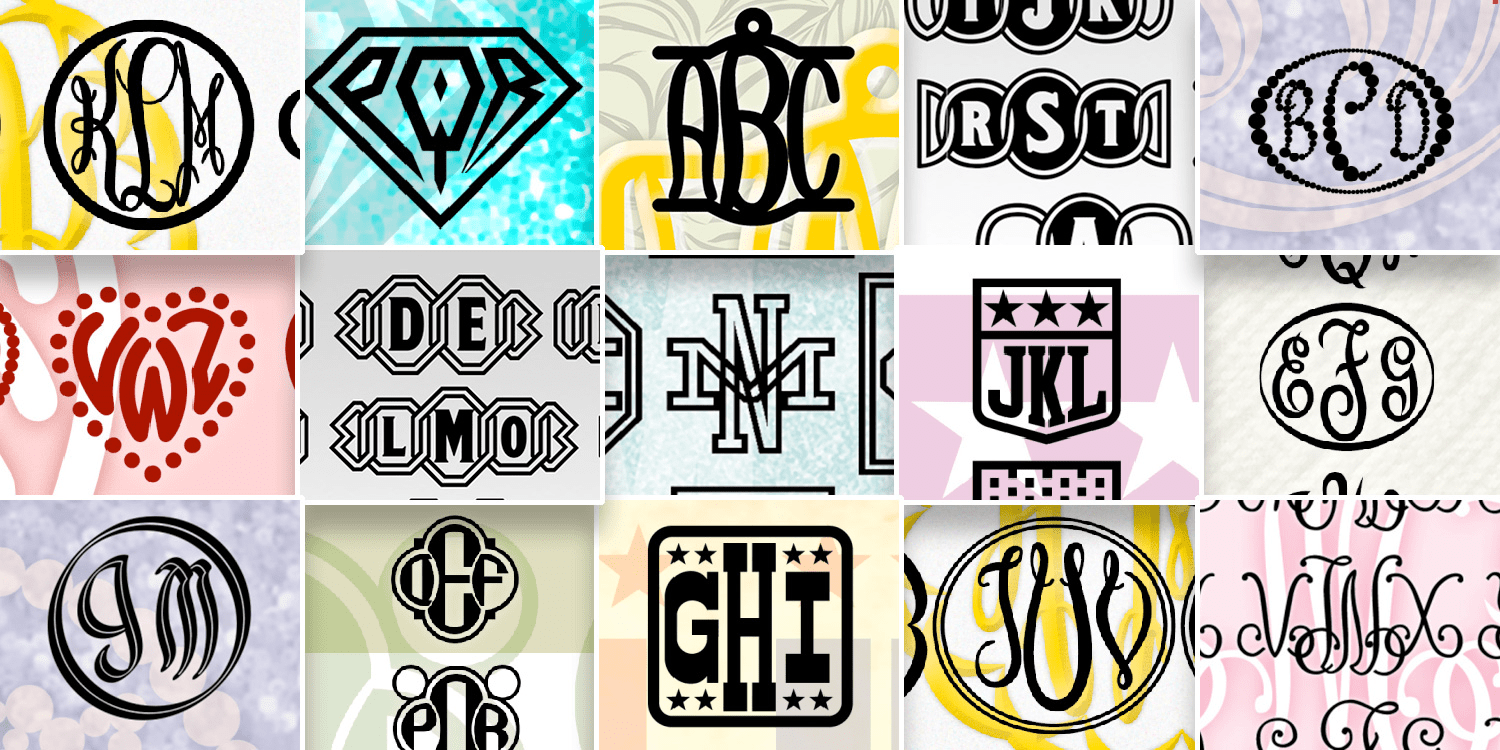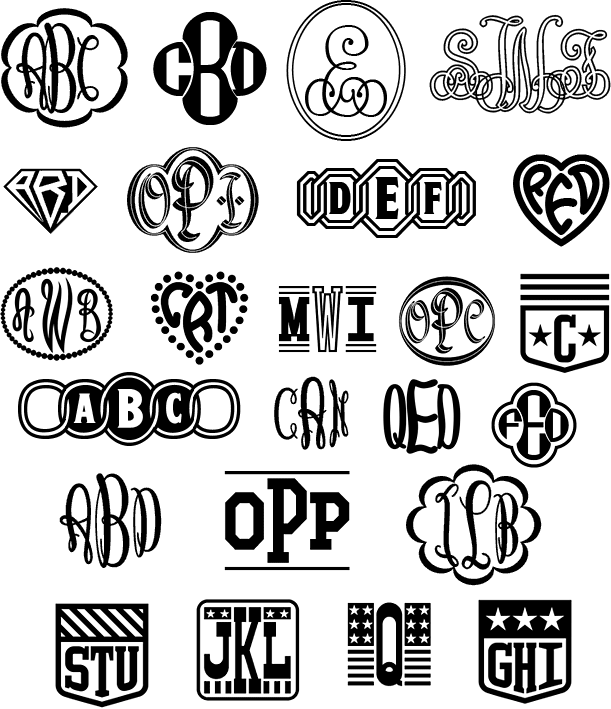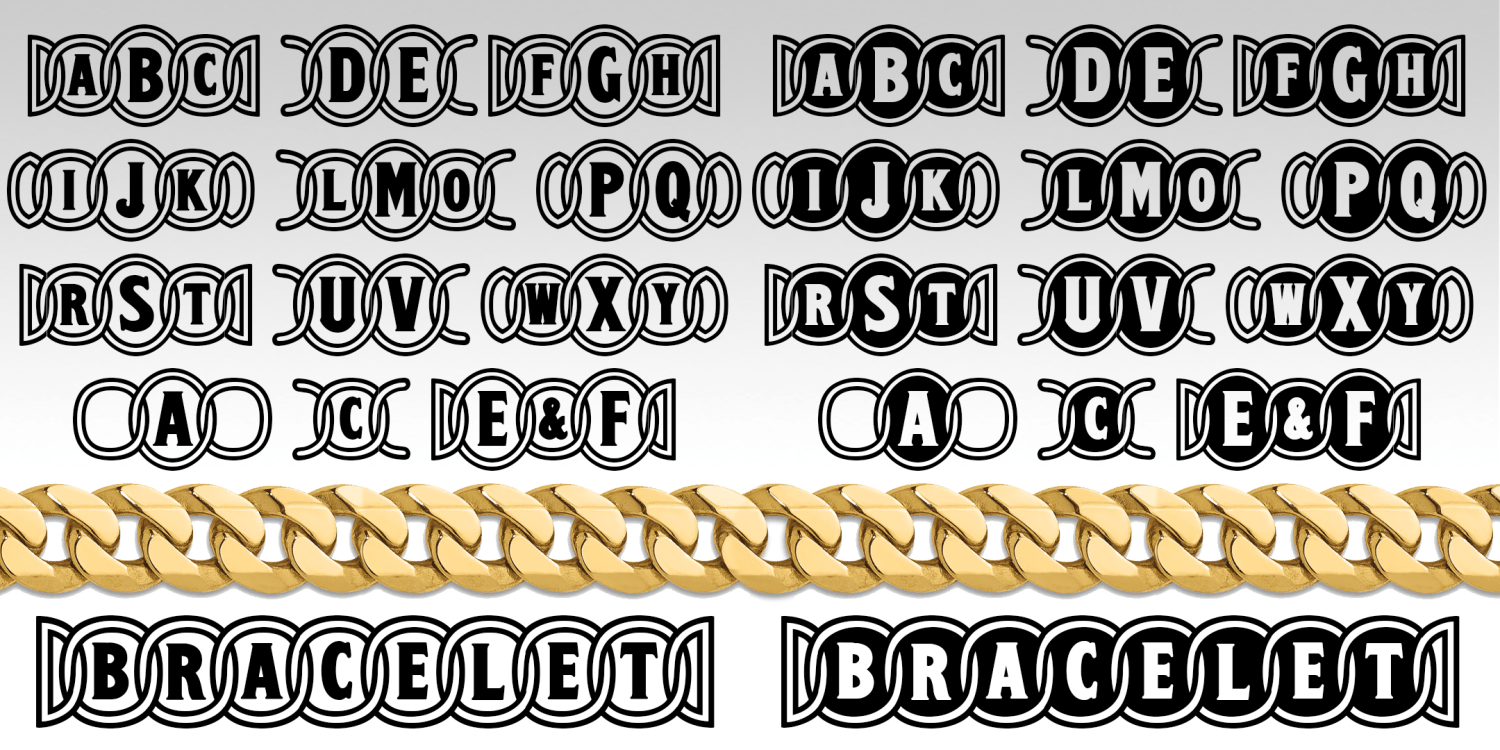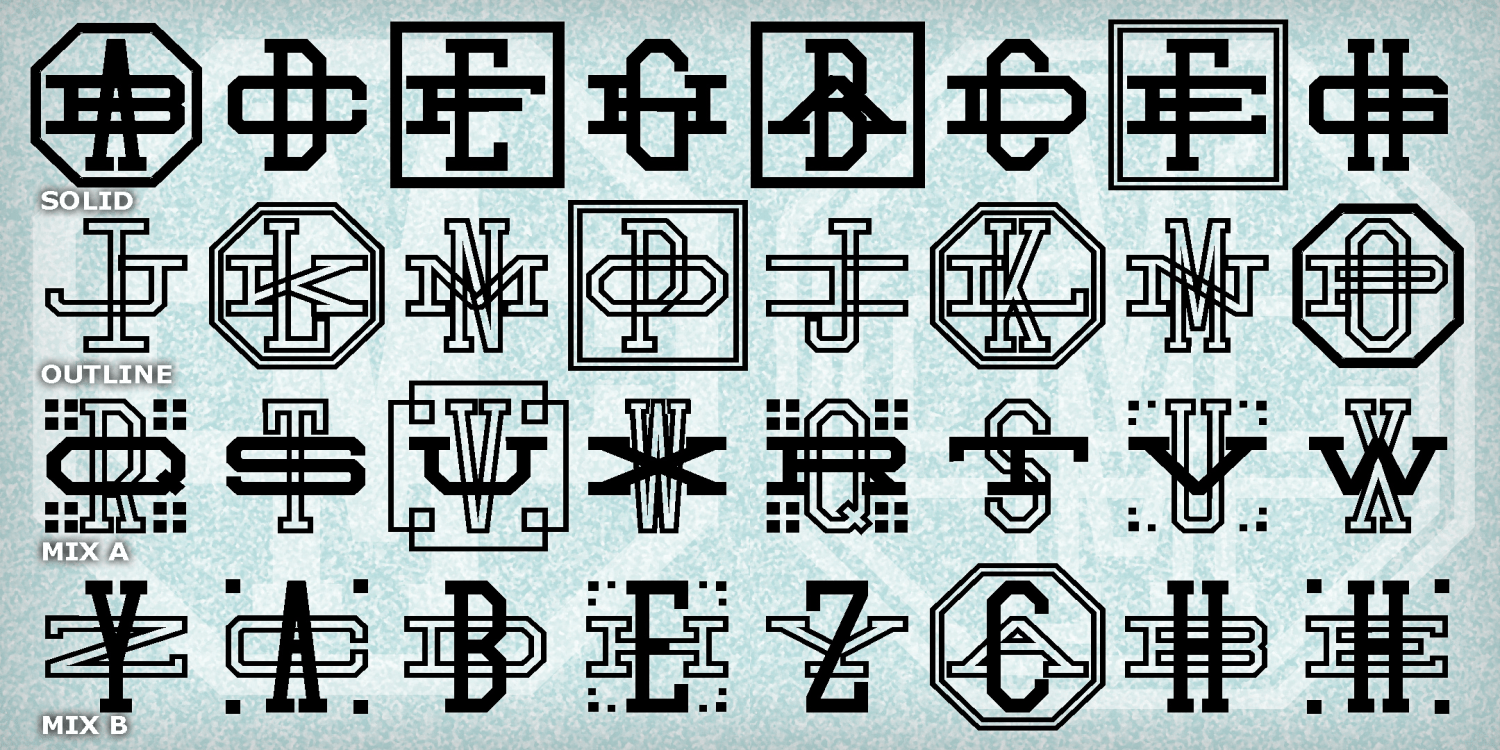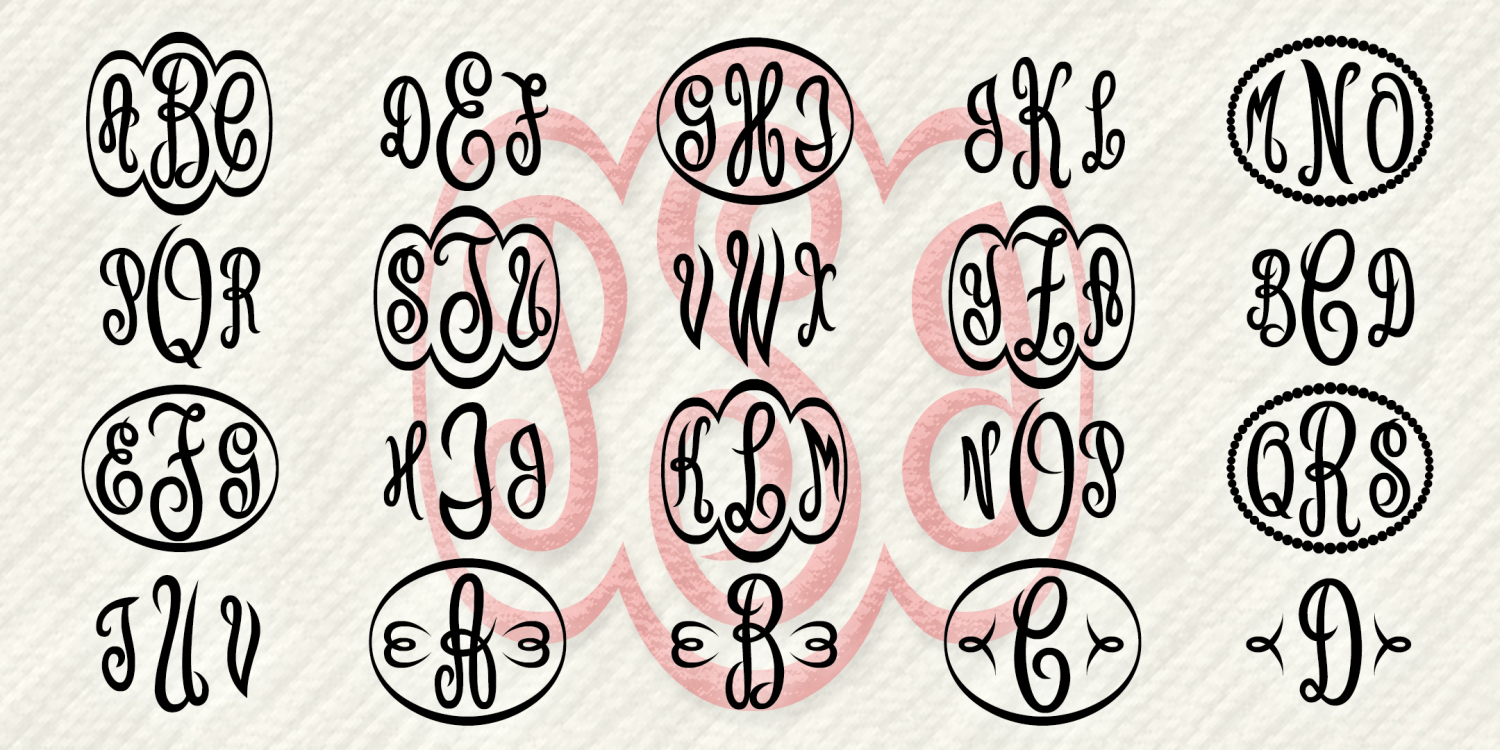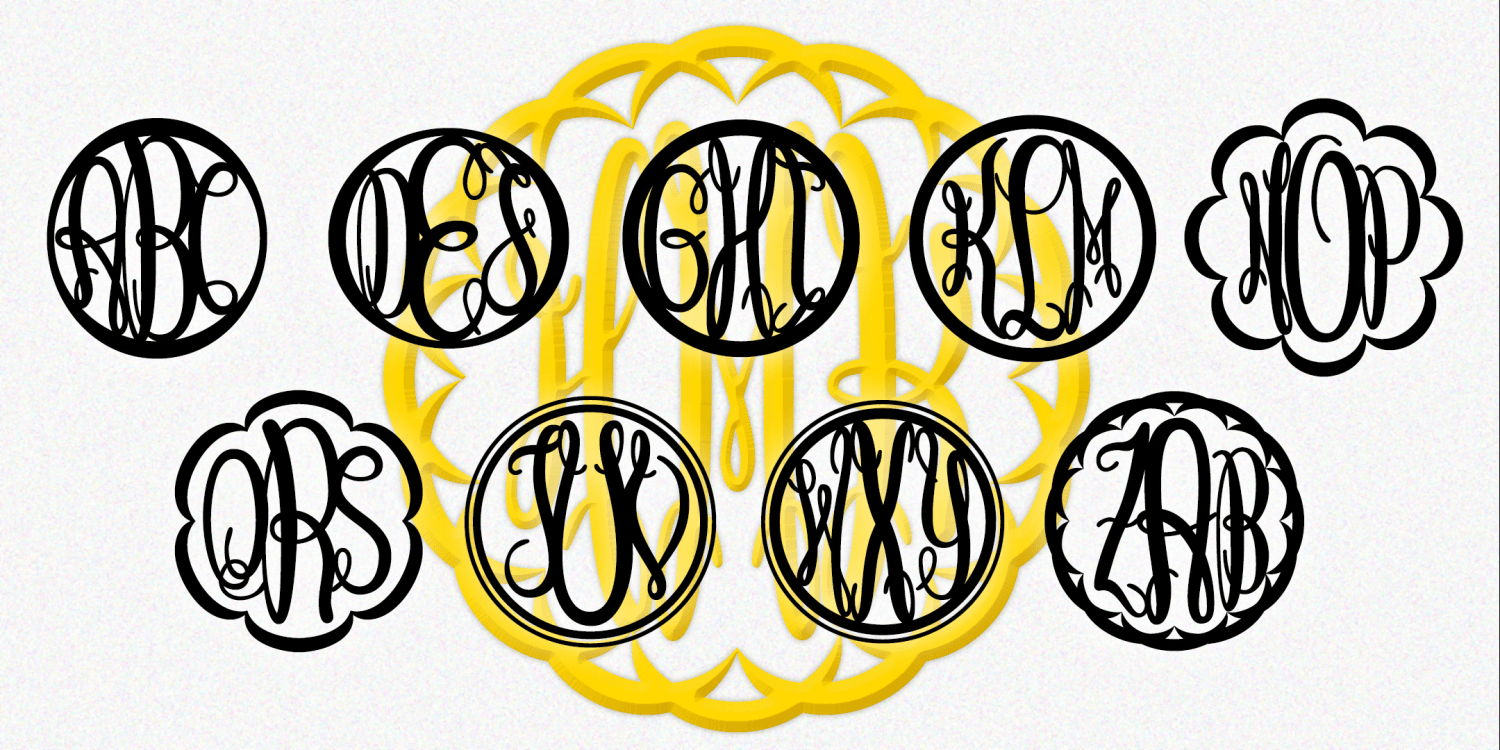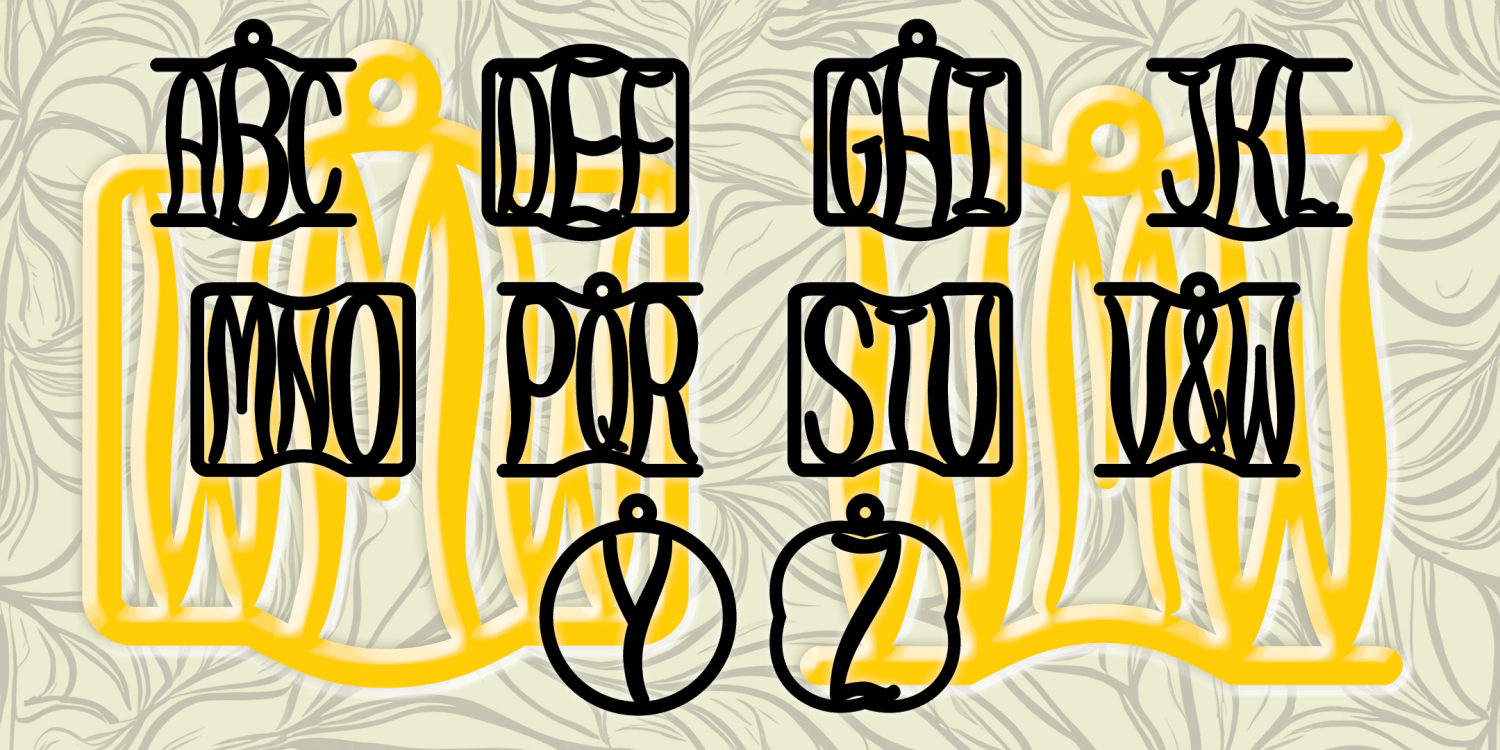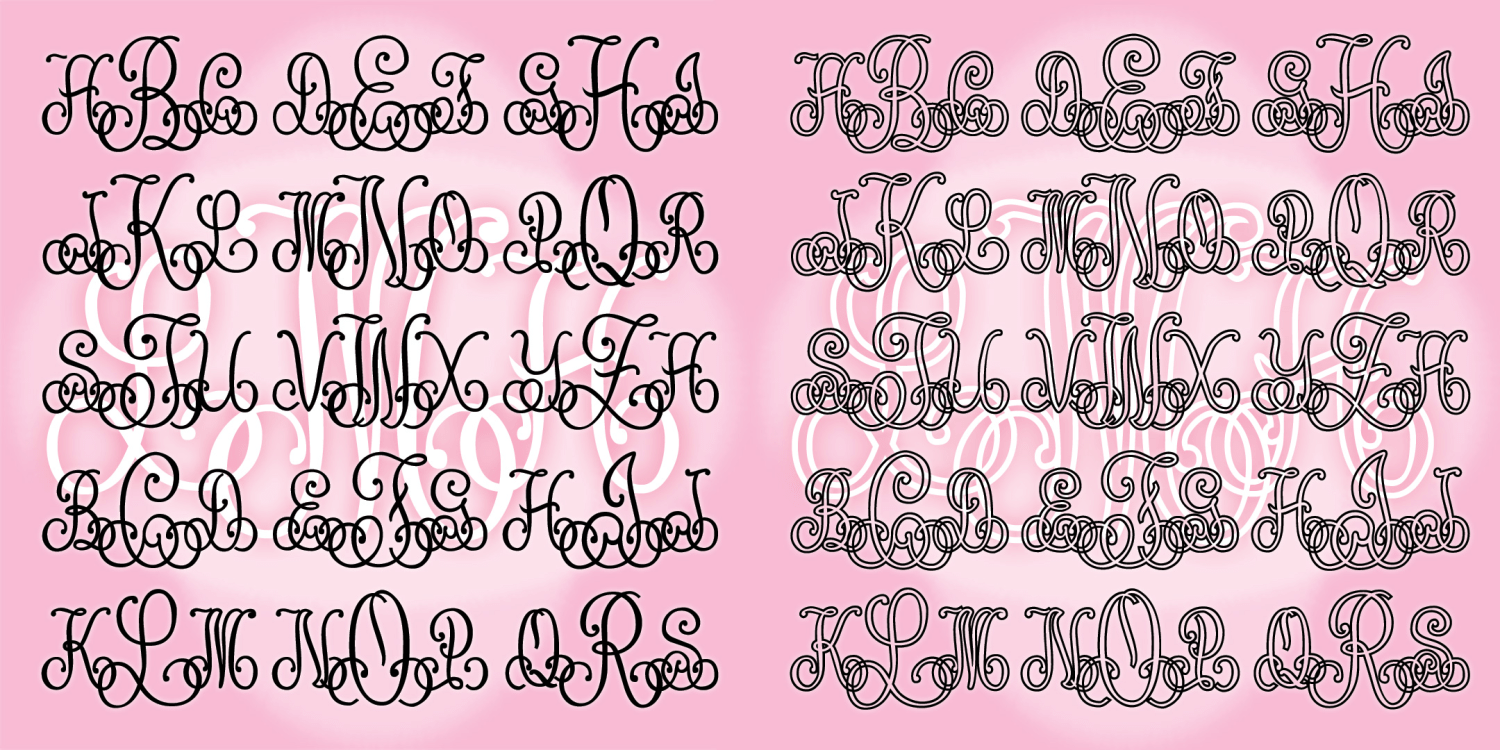
Harold's Monogram Collection Volume 2
Font Family by Harold's Fonts
Get even more of Harold's monograms with a brand new 13 monogram Collection! Create a variety of custom typable 1-, 2-, or 3-letter monograms.
Fonts Included: American Monograms, Bracelet Monograms, Clover Monograms, Collo Monograms, Empress Monograms, French Monograms, Gem Monograms, Heart Monograms, Keepsake Monograms Oval, Lace Monograms, Superfan Monograms, and Willow Monograms.